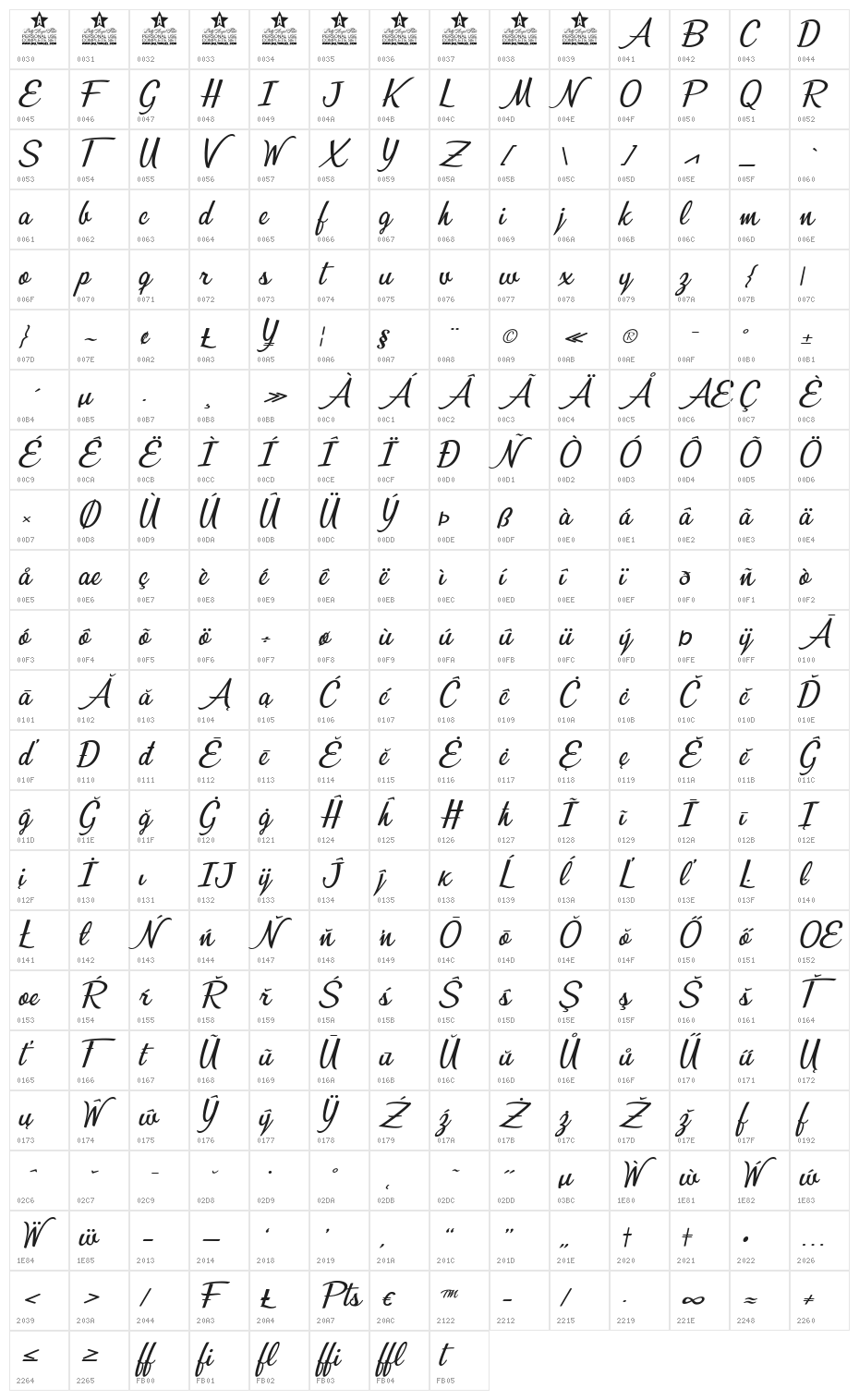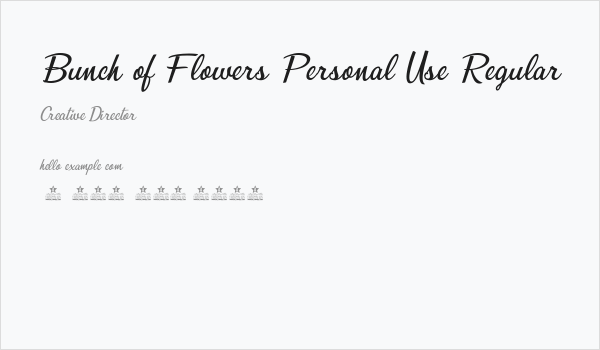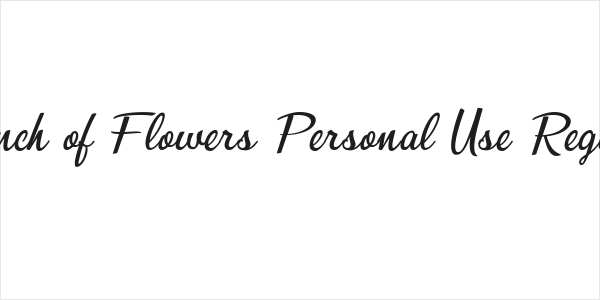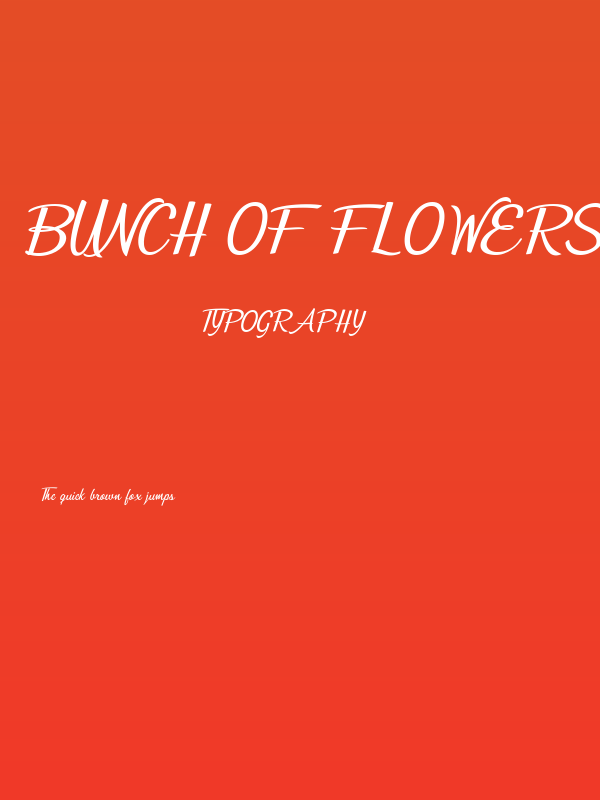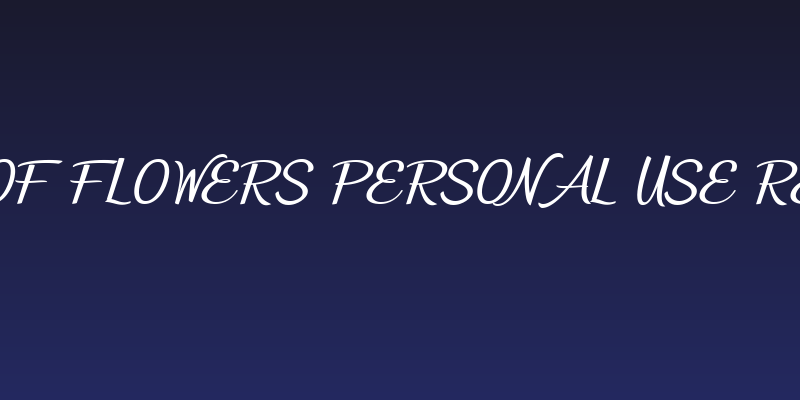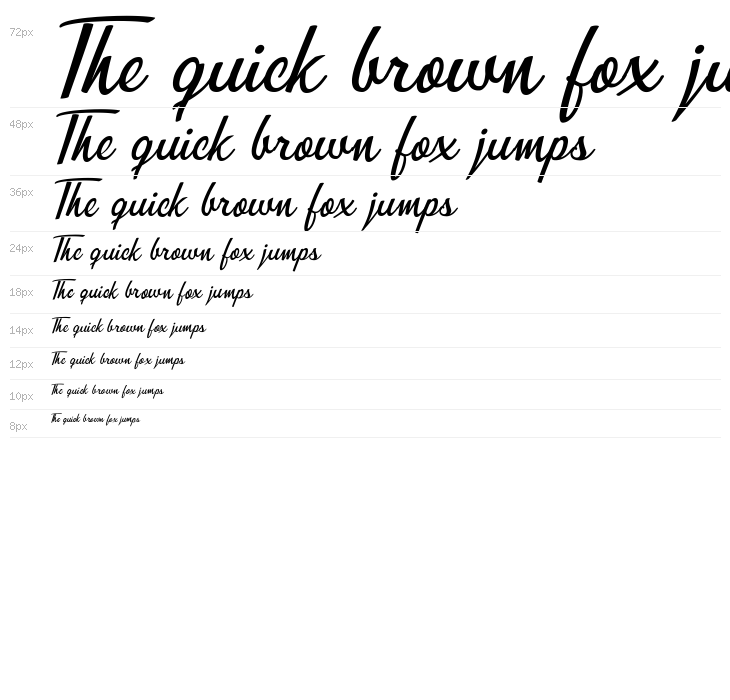
Bunch of Flowers Personal Use Regular Font
Bunch of Flowers Personal Use Regular Description
This font features a flowing, cursive style with elegant, sweeping strokes that give it a sophisticated and artistic appearance. The uppercase letters are particularly ornate, with graceful curves and flourishes that enhance their visual appeal. The lowercase letters maintain a consistent style, with smooth connections between characters that create a seamless flow. The font's overall design is reminiscent of traditional calligraphy, making it suitable for projects that require a touch of elegance and refinement. The numerals and special characters are designed to match the cursive style, ensuring a cohesive look across all text elements.
| Proposed Projects | Ideal for wedding invitations, greeting cards, elegant branding, and decorative headlines. |